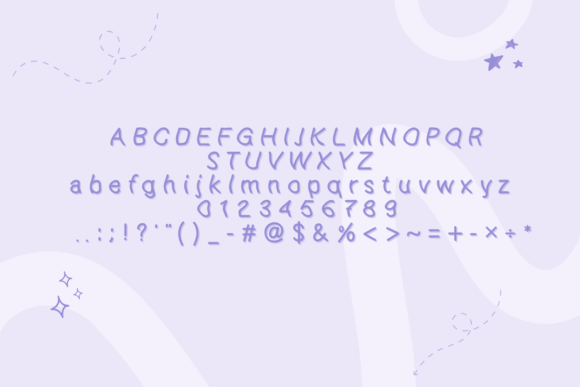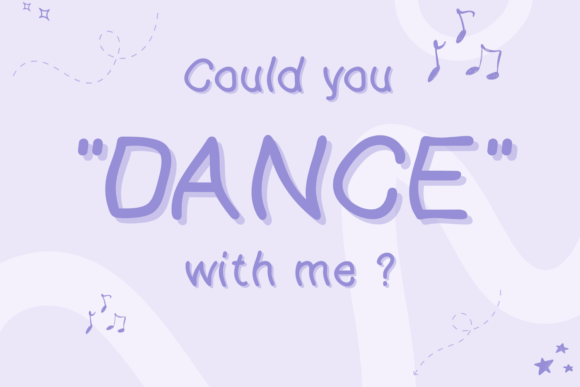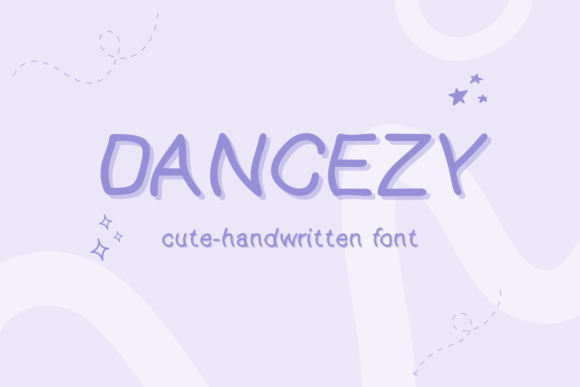
Dancezy Font: Add a Touch of Whimsy to Your Designs
Are you looking for a font that can bring a dash of fun and playfulness to your designs? Look no further than Dancezy Font! This cute and quirky handwritten script font is perfect for adding a touch of whimsy to your projects, from invitations and greeting cards to children’s books and crafts.
The Charm of Dancezy Font
Dancezy Font is a beautifully crafted handwritten script font that exudes a sense of joy and creativity. Its whimsical letterforms and charming irregularities give it a unique and playful feel that’s sure to capture the attention of your audience. Whether you’re designing for a children’s party, a baby shower, or just want to add some personality to your brand, Dancezy Font is the perfect choice.
Dancezy Font is ideal for a wide range of creative projects, including:
• Invitations: Add a touch of whimsy to your wedding invitations, birthday party invites, or baby shower announcements.
• Greeting Cards: Create playful and fun greeting cards for any occasion.
• Children’s Projects: Bring stories to life with Dancezy Font’s playful and imaginative feel.
• Crafts: Add a personal touch to your DIY crafts, such as scrapbooking, journaling, or making handmade cards.
What Makes Dancezy Font Special?
So, what sets Dancezy Font apart from other fonts? Here are a few features that make it truly special:
• Handwritten with love: Dancezy Font is carefully crafted with a handwritten feel that’s warm and inviting.
• Whimsical letterforms: The font’s playful letterforms are designed to bring a smile to your face.
• Charming irregularities: The font’s irregularities give it a unique and human feel that’s perfect for creative projects.
• Easy to read: Despite its playful feel, Dancezy Font is easy to read and understand, making it perfect for body text or headlines.
How to Use Dancezy Font
Get Ready to Dance Through Your Designs
With Dancezy Font, you’ll be able to add a touch of whimsy and fun to your designs. Whether you’re a designer, crafter, or DIY enthusiast, this font is sure to bring a smile to your face and inspire your creativity. So why wait? Get ready to dance through your designs with Dancezy Font!
In conclusion, Dancezy Font is a unique and playful handwritten script font that’s perfect for adding a touch of fun and whimsy to your designs. With its charming irregularities, whimsical letterforms, and easy-to-read design, it’s ideal for a wide range of creative projects. So why not give it a try? Download Dancezy Font today and start dancing through your designs!